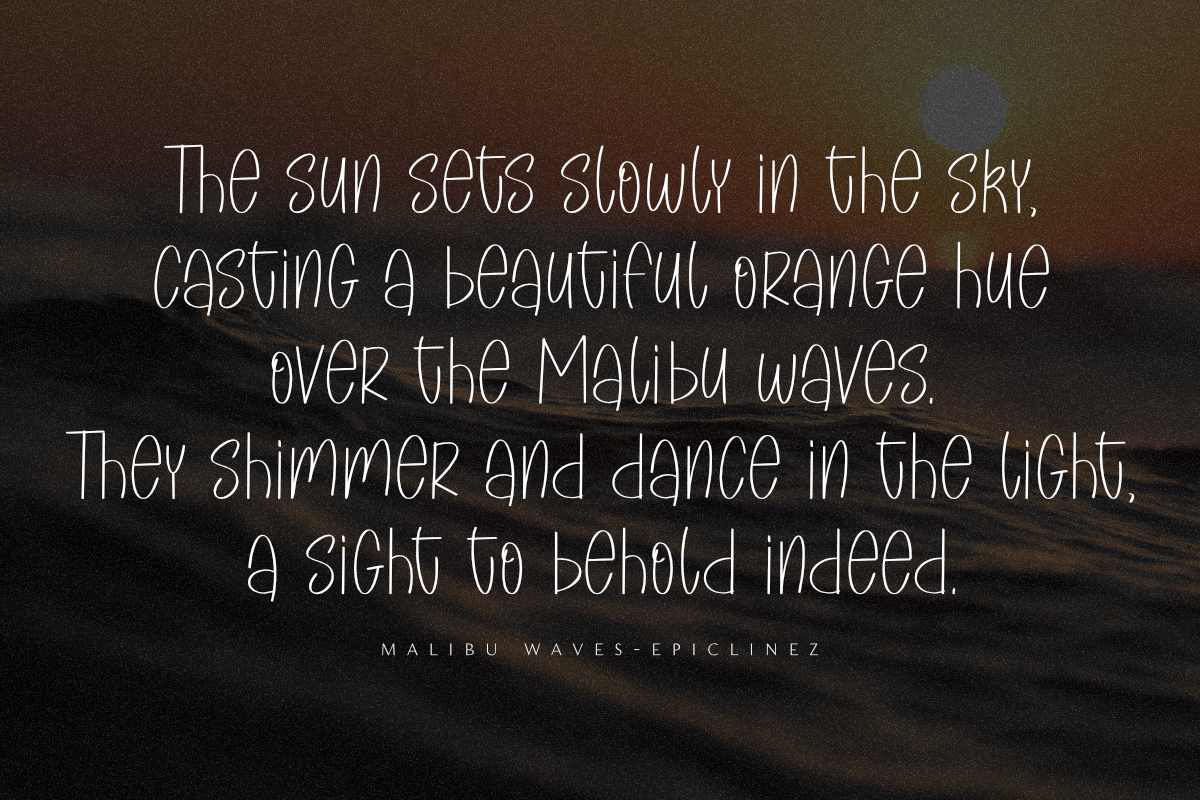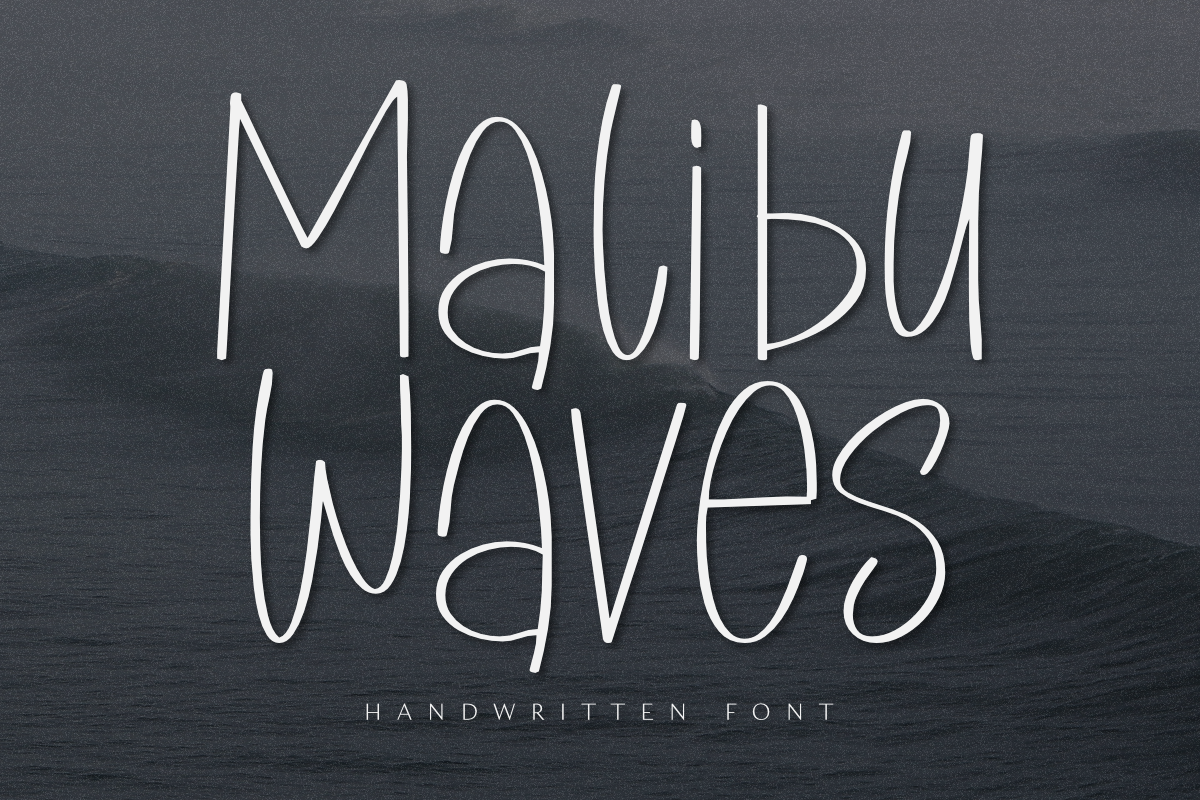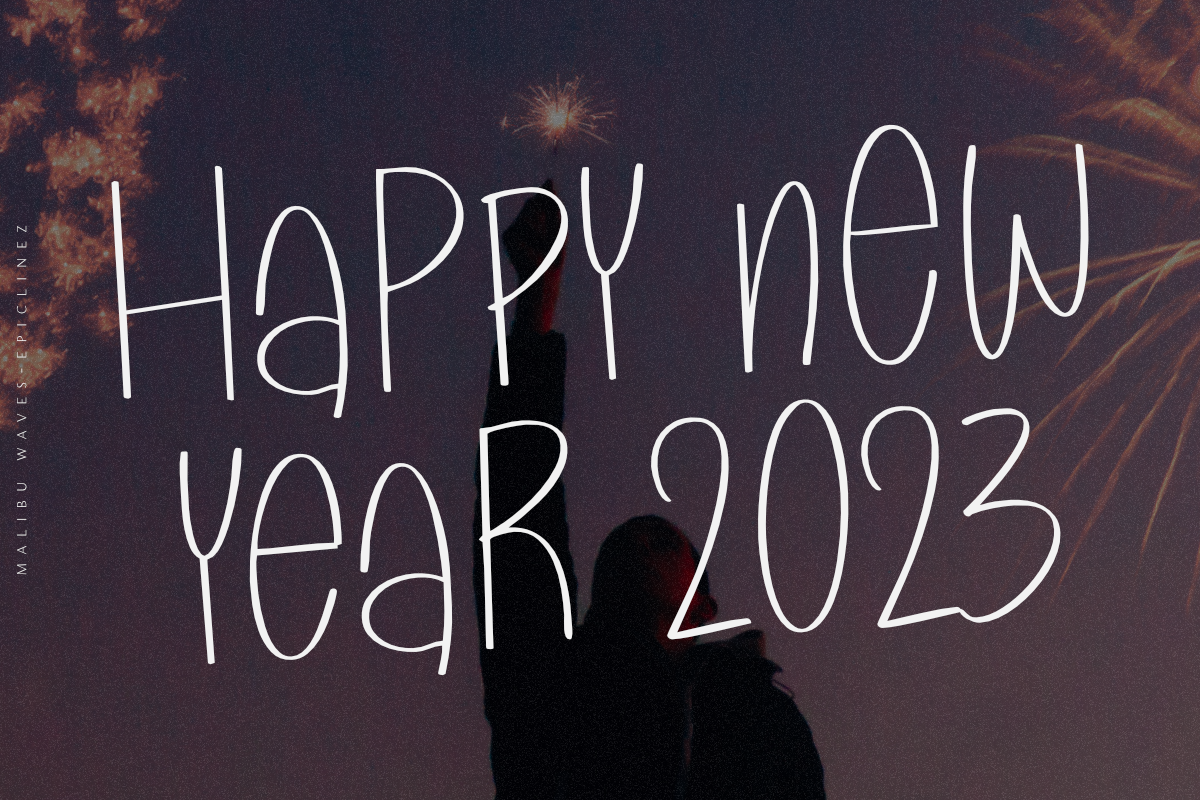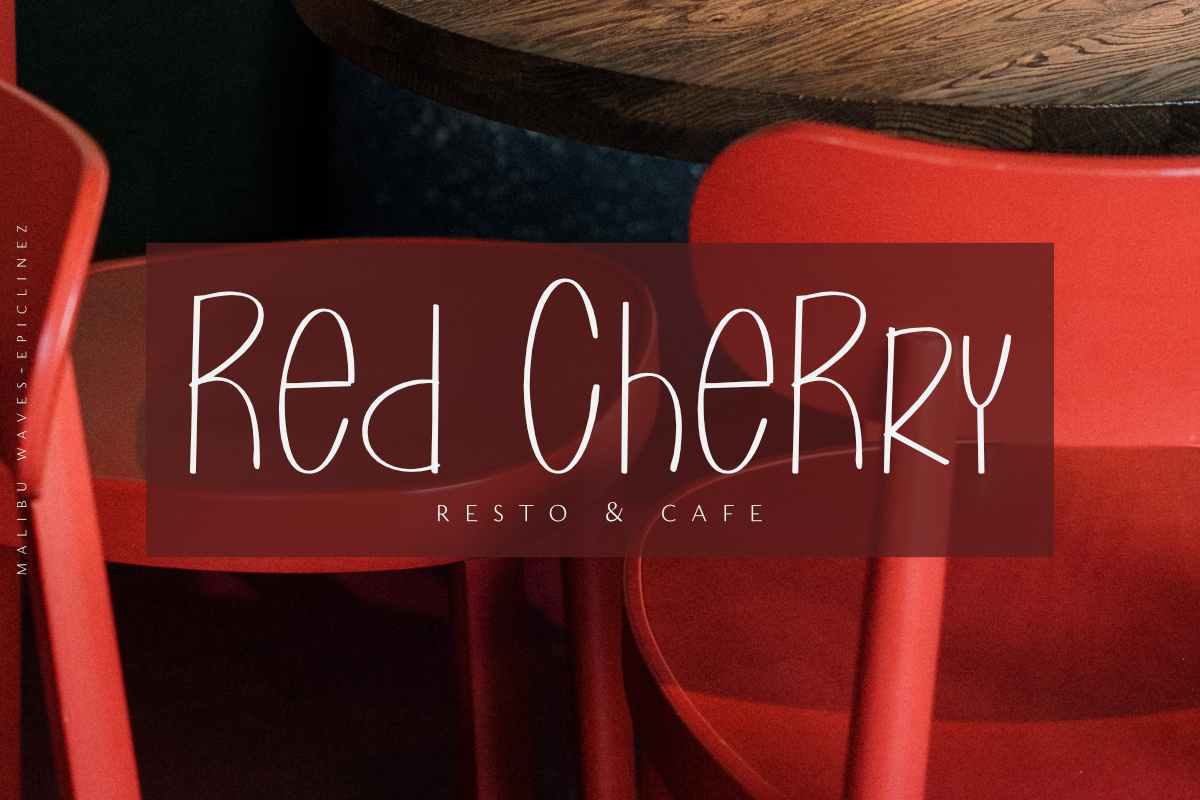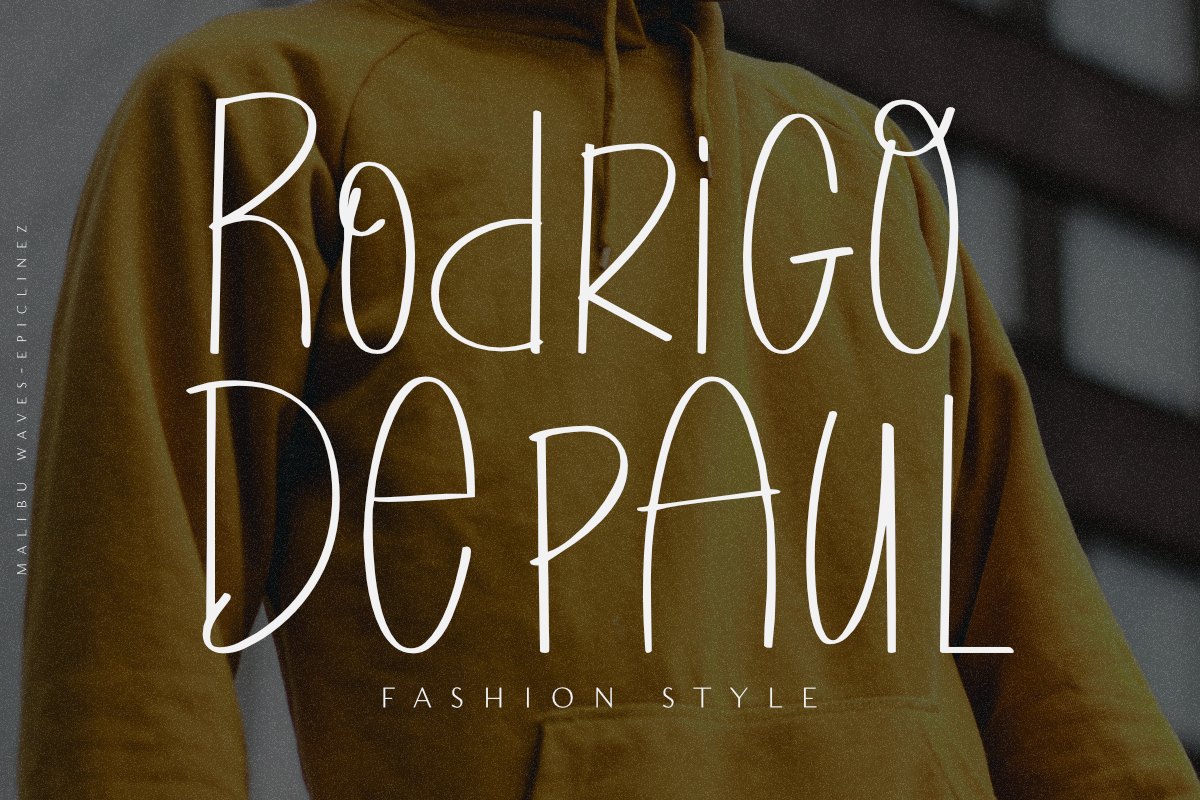
Malibu Waves - Display Font
Sometimes you just need a little bit of that old-fashioned charm. That's why we created Malibu Waves. With a beautiful, handwritten style, this font is perfect for those who love the classic look with a modern twist. It’s timeless, perfect for adding some natural flair to your designs, and works great with any project.